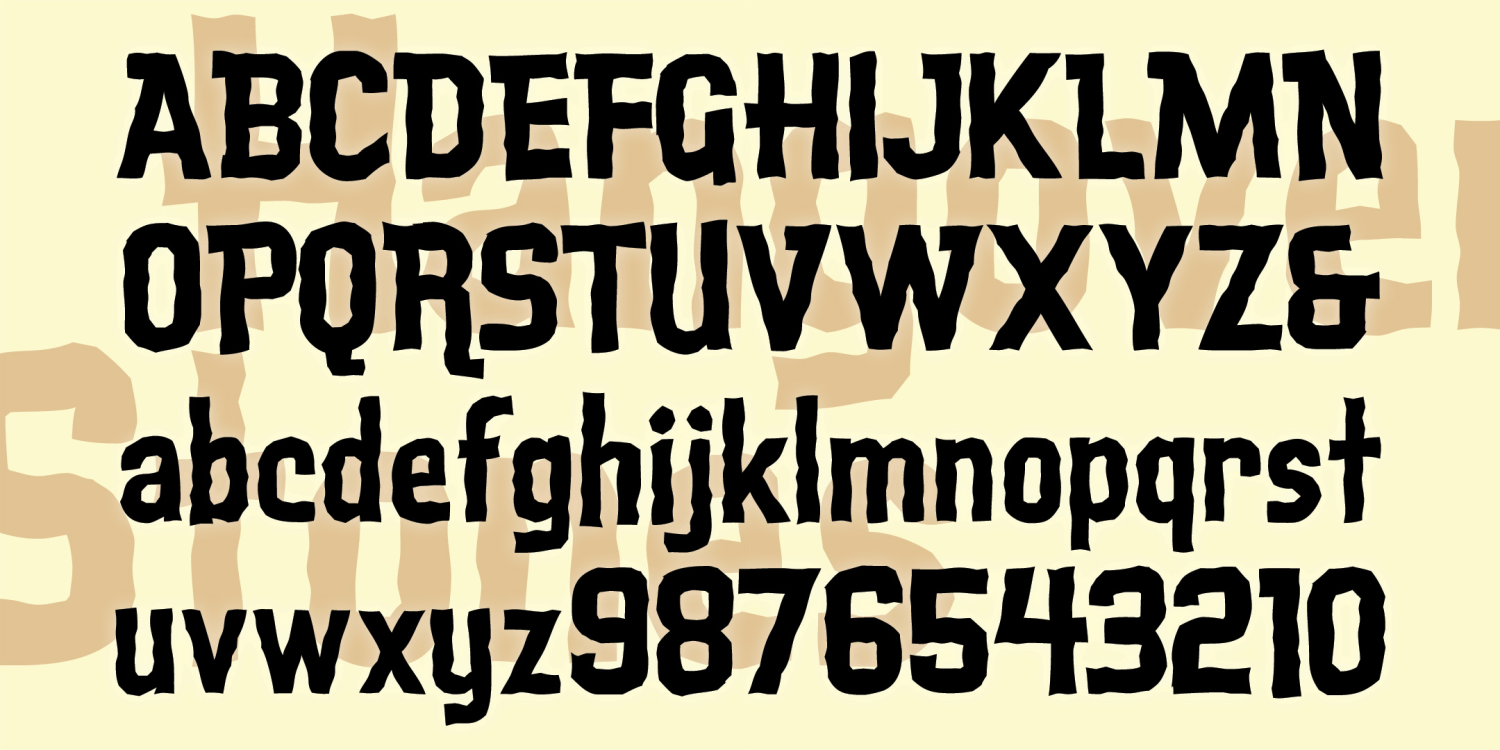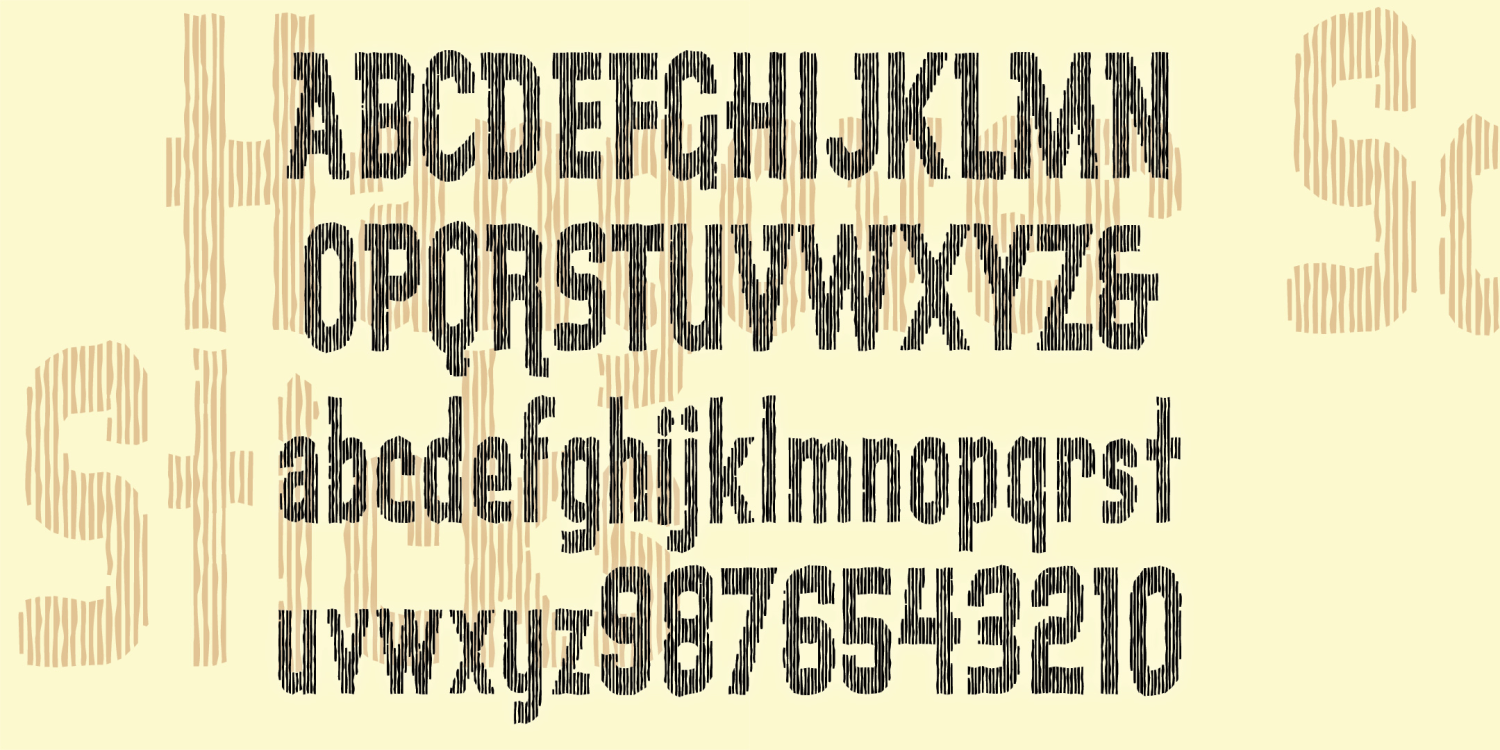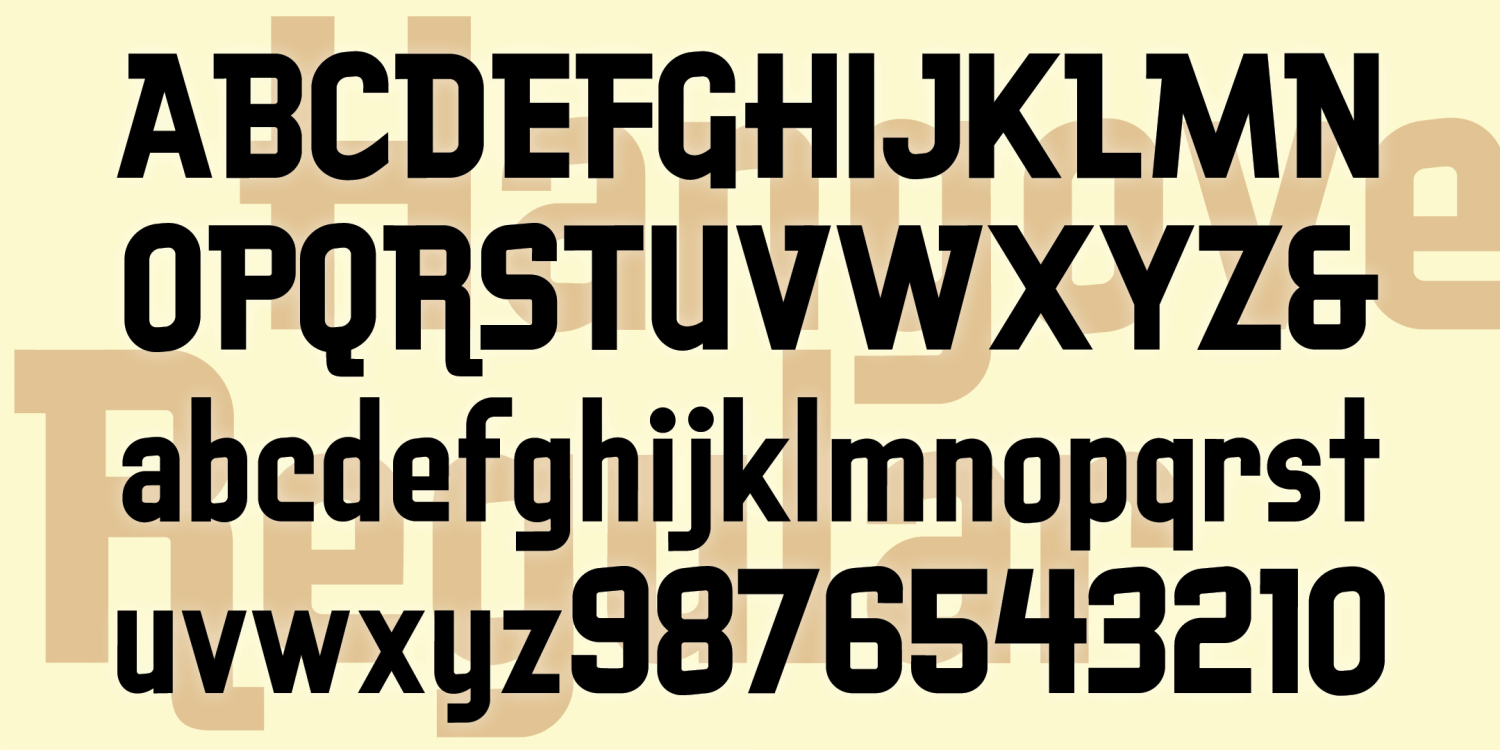
Hangover Square
About Hangover Square
HANGOVER SQUARE is a family of three fonts with early 1960s style and a variety of textures. The original font is a smooth sans serif with offbeat details. Hangover Square Stones has the same distinctive letterforms with a rocky edge. Hangover Square…